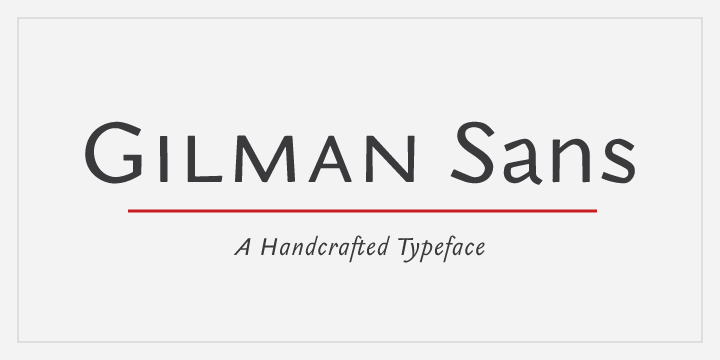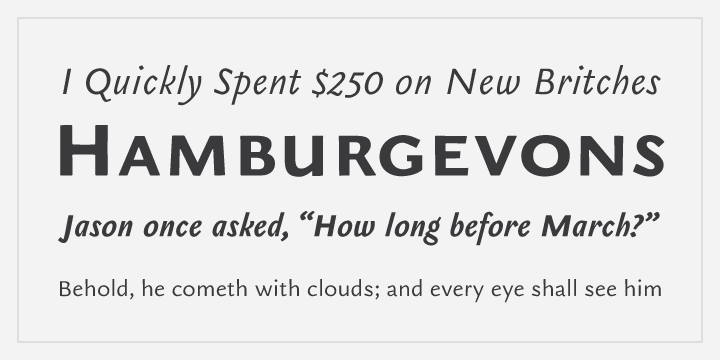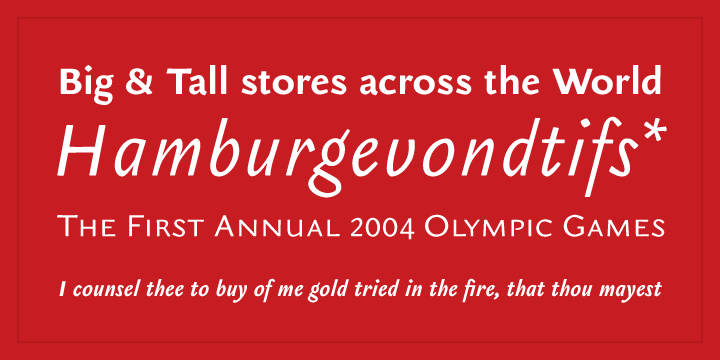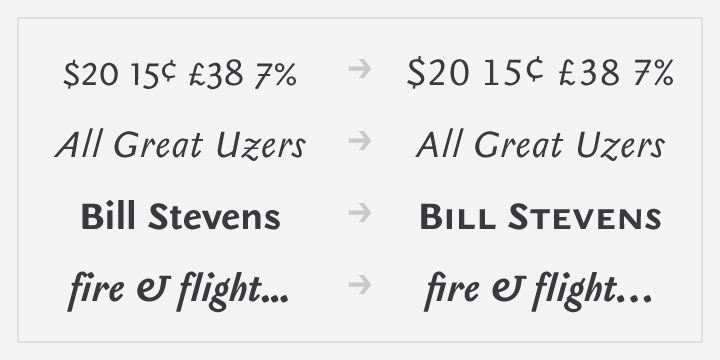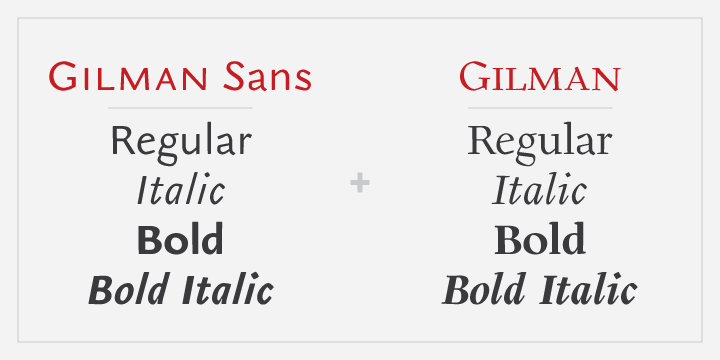
Gilman Sans
Gilman Sans is the family member of Gilman, the serif that it was derived from. The idea for Gilman started simple enough, a serif typeface that works well for large amounts of text. However, after many struggles creating a quality typeface digitally, I decided to first draw the complete alphabet by hand on paper, and then trace that digitally. The result is a unique workhorse typeface with a subtle 'human touch' that is very rare in this modern technological age.
Gilman Sans has extensive language support and comes with many opentype features like true small caps, tabular lining figures, stylistic alternates, ligatures and more. Gilman Sans and Gilman are excellent compliments and work together harmoniously on the page.